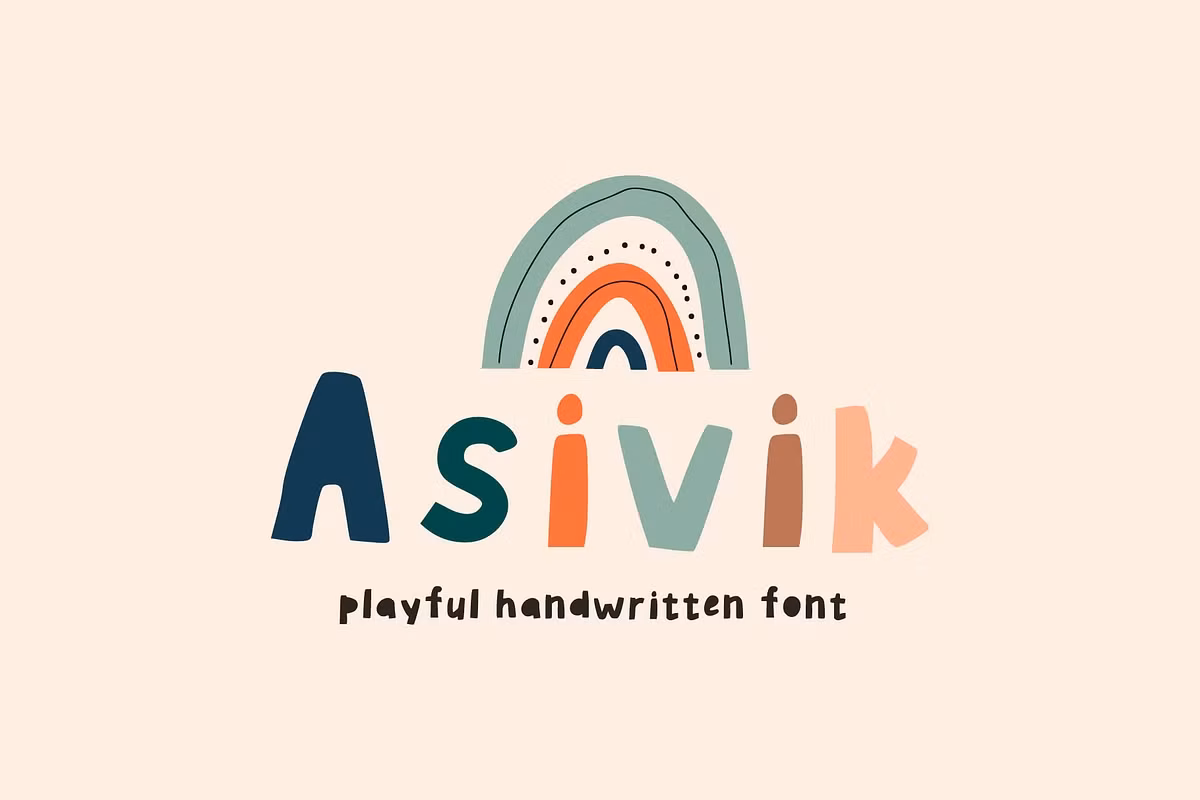
Bold, quirky, and full of handcrafted character, Handwritten Cutout Font ASIVIK Free Download is a playful display typeface that mimics the look of paper cutout letters with a handwritten twist. Perfect for posters, zines, album covers, kids' projects, and creative branding, ASIVIK stands out with its raw, artistic personality.
Each letter feels individually crafted, giving your designs a personal and expressive touch. Its uneven edges and bold shapes lend a fun, DIY aesthetic that’s both nostalgic and contemporary—ideal for anyone wanting to break away from polished perfection.